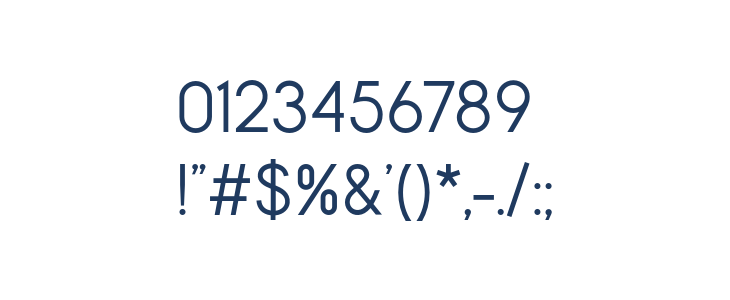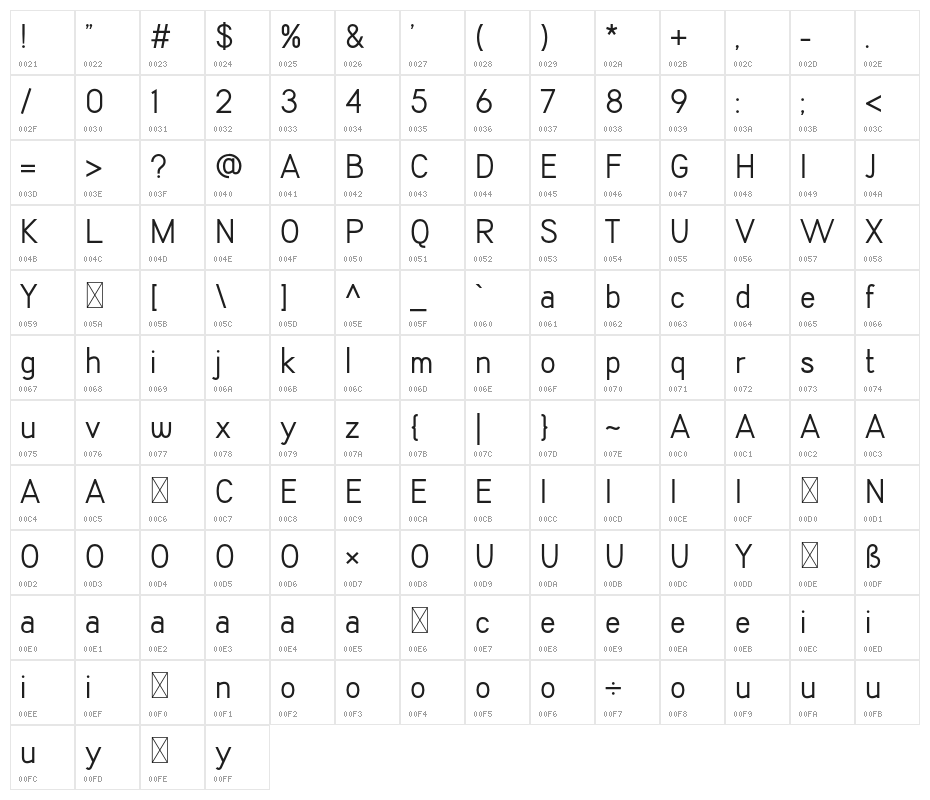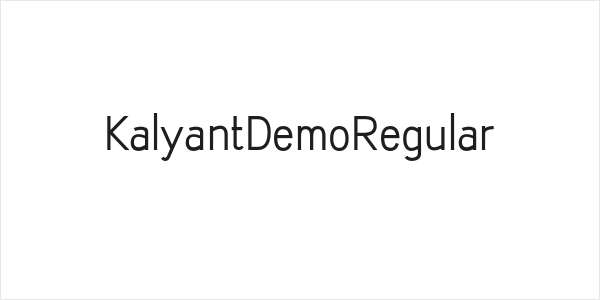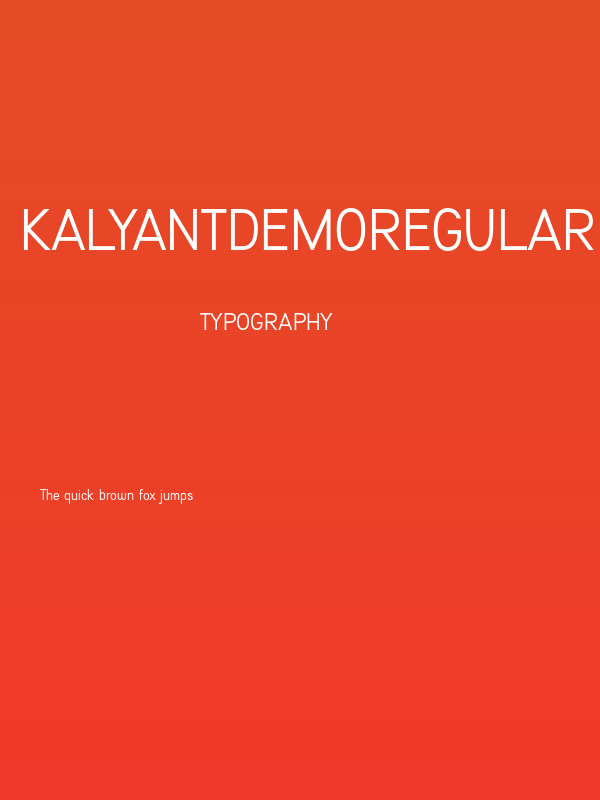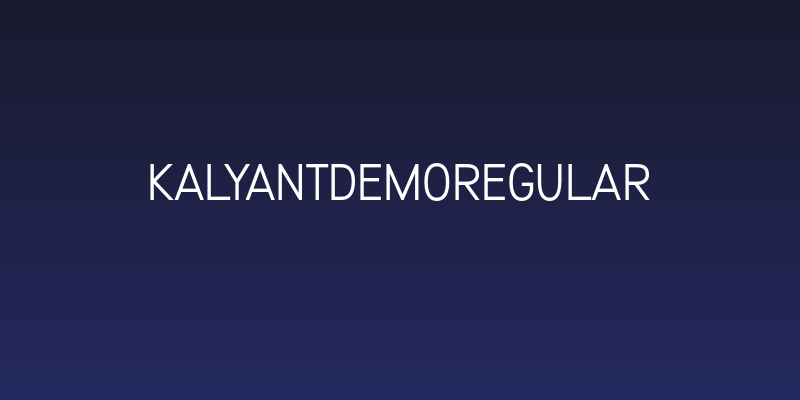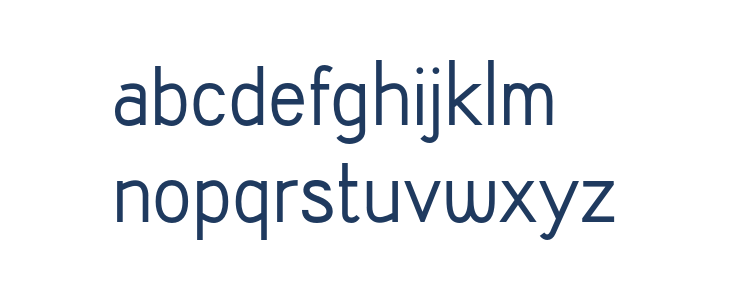
KalyantDemoRegular Font
KalyantDemoRegular Description
This font features a clean and modern sans-serif design, characterized by its geometric shapes and uniform stroke widths. The uppercase and lowercase letters are well-balanced, with a consistent height and width that enhances readability. The numerals are clear and distinct, making them suitable for both digital and print applications. Special characters are included, maintaining the font's cohesive style. The overall appearance is sleek and professional, making it versatile for various design needs.